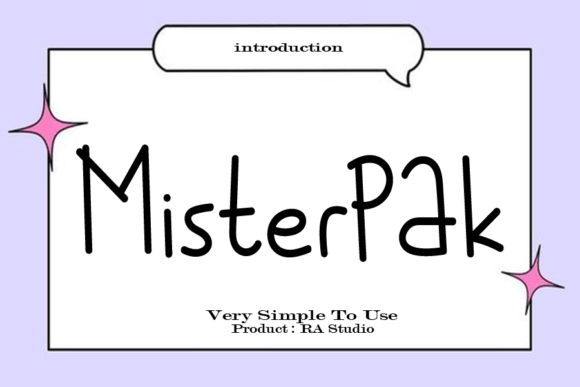
Misterpak Font
Journey through time with Misterpak Font - A Stroke of Vintage Charm for Your Creative Palette!
In a world of digital designs, there's a font that stands out with its classic elegance and nostalgic allure - Misterpak Font. This script font, crafted by the talented RA Studio, is a gateway to a bygone era, effortlessly capturing the essence of vintage designs.
Embrace the Art of Vintage
With Misterpak Font, you can transport your designs back to a time of simplicity and charm. Its meticulously crafted characters exude an air of authenticity, reminiscent of handwritten letters and weathered signs. Each stroke carries a story, adding depth and character to your creations.
Not just a font, Misterpak is an experience that ignites your imagination. Close your eyes and picture a classic diner with neon signs, an old-fashioned record player spinning your favorite vinyl, or a vintage travel poster beckoning you to distant lands. Misterpak Font captures the essence of these moments, allowing you to infuse your designs with a timeless charm.
Versatile and Limitless Possibilities
Misterpak Font's versatility knows no bounds. Whether you're crafting logos, headlines, or branding elements, this font seamlessly adapts to your creative vision. Its classic style lends itself perfectly to apparel designs, posters, music and movie titles, games, magazines, books, and even YouTube and Instagram posts.
It's the perfect choice for designers seeking to add a touch of nostalgia and elegance to their work. With Misterpak Font, your designs will resonate with audiences who appreciate the timeless beauty of vintage aesthetics.
Easy to Use and Customize
With its user-friendly design, Misterpak Font integrates effortlessly into your existing workflow. Its intuitive interface allows for seamless customization, enabling you to modify the font's size, color, and effects to match your project's unique requirements.
Whether you're a seasoned designer or just starting, Misterpak Font empowers you to create stunning designs that capture the essence of vintage charm.
Your Creative Journey Awaits